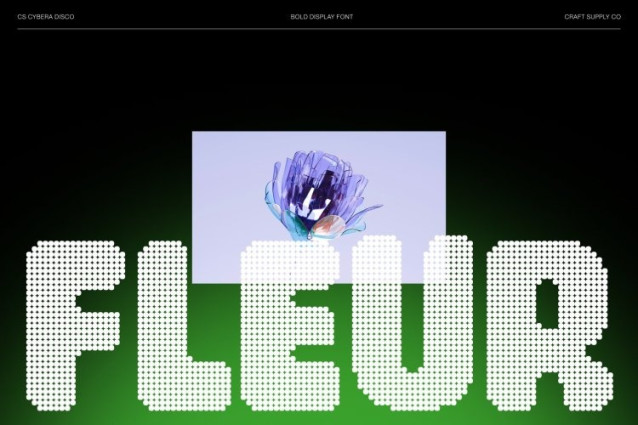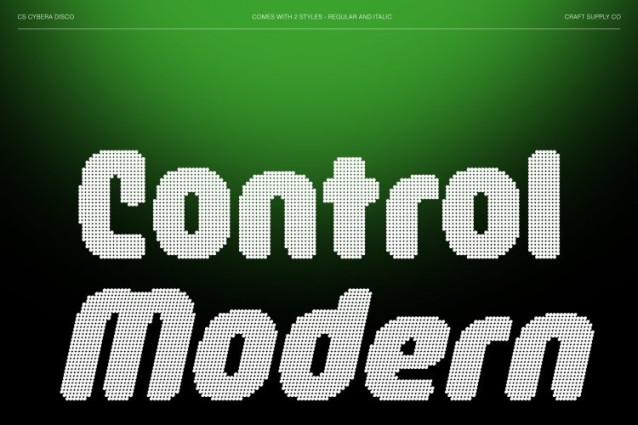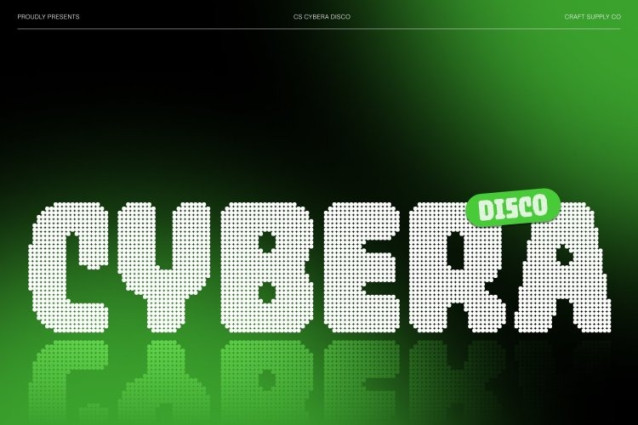
CS Cybera Disco Font
CS Cybera Disco Font This is a bold sans serif display font designed to make an immediate impact. With strong, confident letterforms, it instantly draws attention and conveys modern authority. Perfect for headlines, branding, and posters, it delivers clarity and presence in every composition.
Rounded Shapes with Glamorous Disco Appeal
The rounded contours soften the font’s bold structure, creating a fresh and friendly look. Enhanced with a disco-inspired style, these smooth curves reflect the sparkle of party lights and retro dance floors balancing strength with warmth, glamour, and playful energy.
Festive Energy with Retro-Modern Rhythm
Built on clean geometry and smooth visual balance, this font captures the excitement of the dance floor through a modern lens. Its lively rhythm and disco character evoke flashing lights, movement, and retro flair, making it feel energetic, joyful, and visually engaging across digital and print media.
Perfect for Impactful Branding and Party-Ready Design
More than just a display font, This is a bold expression of modern creativity and festive confidence. Ideal for logos, large headlines, event promotions, fashion visuals, social media graphics, and nightlife branding, it ensures every design feels vibrant, glamorous, and unforgettable.